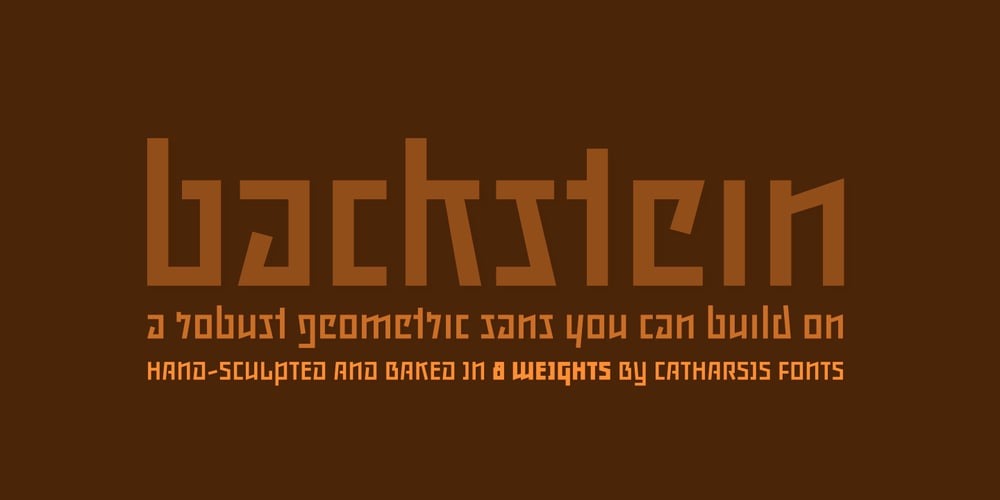
Backstein
Backstein font
Backstein Font Family was designed by Christian Thalmann and published by Catharsis Fonts. Backstein contains 76 styles and family package options. Backstein is an abstract sans built to last. Its strong horizontal foundation, pragmatic construction, and rock-solid texture make it a powerful choice for display and logotype applications, while its original lettershapes and subtle eccentricities maintain legibility even at smaller sizes. It comes fully equipped with pan-european language support, ligatures, and stylistic alternates. Backstein is now available in a spectrum of 8 weights, from ethereal Hairline to bedrock Bold. While each weight is available individually, we recommend the Backstein Essentials (Light, Regular, Bold) or Backstein Family (all 8 weights) value packs. Backstein is an original design by Catharsis Fonts (Christian Thalmann) that took its inspiration from the broken antiqua lettering in Berlin�s old subway stations. Its name means �baked brick� in German, summing up the intent behind the design: A solid, no-nonsense font you can build on. This font is dedicated to Simone.